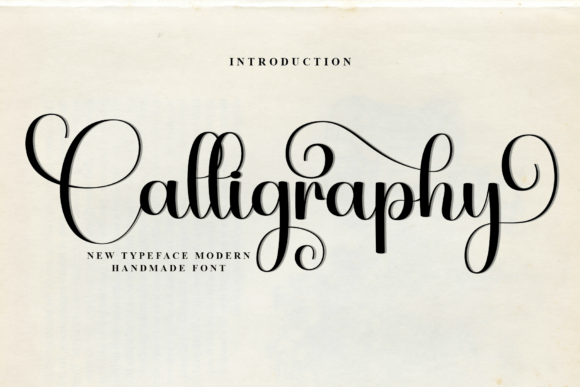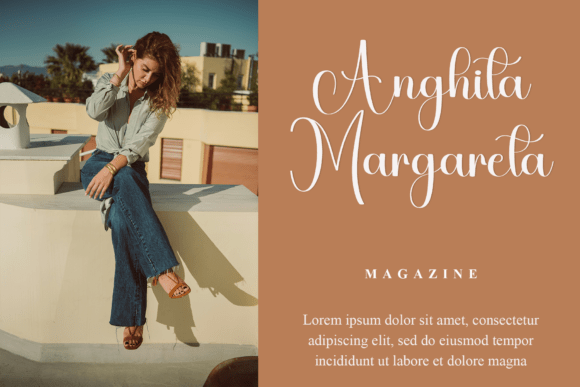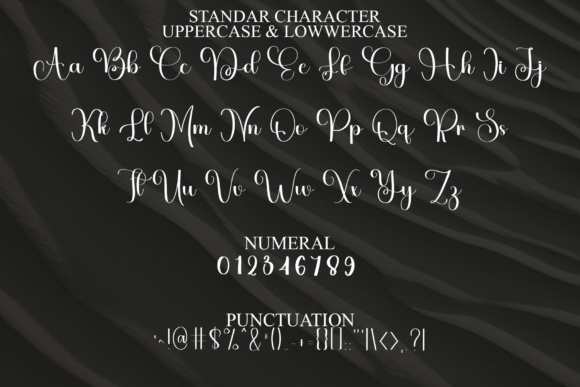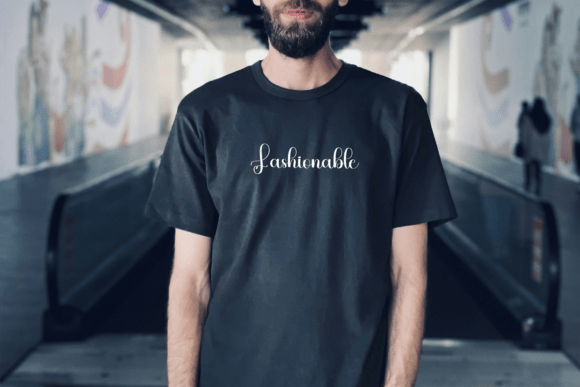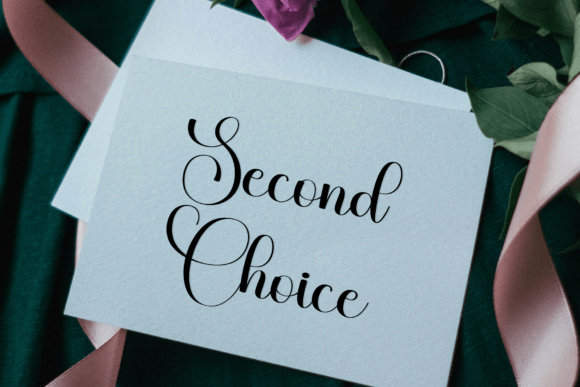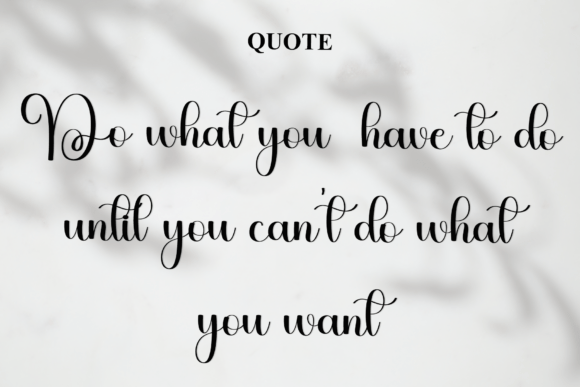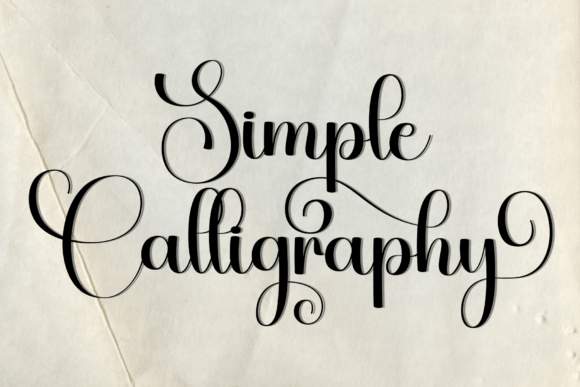
The Art of Elegant Writing: Unlocking the Power of Calligraphy Font
Have you ever sat down with a pen and paper, feeling the rush of creativity as you let your thoughts flow onto the page? That’s exactly what happened when artist Emma Taylor first discovered the beauty of Calligraphy Font. She was working on a custom wedding invitation for a dear friend, and the elegant script font she chose seemed to bring the entire design together. As she refined the details, she realized that this font was more than just a pretty face – it was a way to add a touch of sophistication and personality to any project.
Calligraphy Font is a versatile and stylish script font that can elevate any design from ordinary to extraordinary. From wedding invitations and thank you cards to logos and business cards, this font is perfect for anyone looking to add a handwritten touch to their work. For designers, Calligraphy Font is a valuable tool that can help them stand out from the crowd and create truly unique and memorable designs.
Key Features of Calligraphy Font
- Unique Characteristics: Calligraphy Font features intricate, handwritten letterforms with subtle flourishes and connections between letters. This gives the font a personal, elegant feel that is perfect for formal invitations, wedding stationery, and other high-end designs.
Designer Review: Calligraphy Font
Overall, I think Calligraphy Font is a beautiful addition to any design project. Here’s what works well: ✨ It’s incredibly versatile and can be used for a wide range of applications, from wedding invitations to logos and branding materials. ✨ The font is highly customizable, with many options for adjusting the size, spacing, and color of the text. ✨ The resulting text looks elegant and sophisticated, perfect for making a statement.
- Wide range of applications
- Elegant and sophisticated text
However, there are some limitations to consider: ⚠️ The font can be quite large, which may not be suitable for smaller text or tight spaces. ⚠️ Some users may find the font to be too ornate or distracting, which can be a drawback in certain contexts. ⚠️ Additionally, the font may not be compatible with all devices or operating systems, which can cause issues with readability.
Overall, I would give Calligraphy Font a solid 4 out of 5 stars. While it’s not perfect, it’s a beautiful and versatile font that can add a touch of elegance to any design project. With a little creativity and experimentation, I’m sure you’ll be able to get the most out of this font.
Tips for Getting the Most Out of Calligraphy Font
Here are some tips for getting the most out of your calligraphy font:
- Experiment with different font sizes and styles to achieve the desired effect.
- Use a calligraphy font to add a touch of elegance to your designs.
- Combine calligraphy font with other design elements, such as illustrations or graphics, to create a unique look.
Common Use Cases for Calligraphy Font
Here are some common use cases for calligraphy font:
- Event branding and signage. Alternatives to Calligraphy Font
- Choose a Calligraphy Font that suits the style of your wedding, such as a classic or vintage font.
Project 1: Wedding Invitation Design
Create a beautiful and elegant wedding invitation design using Calligraphy Font. This font is perfect for adding a touch of sophistication and romance to your design.
Project 2: Customized Quote Art
Create a beautiful and inspiring quote art piece using Calligraphy Font. This font is perfect for adding a touch of elegance and sophistication to your design.